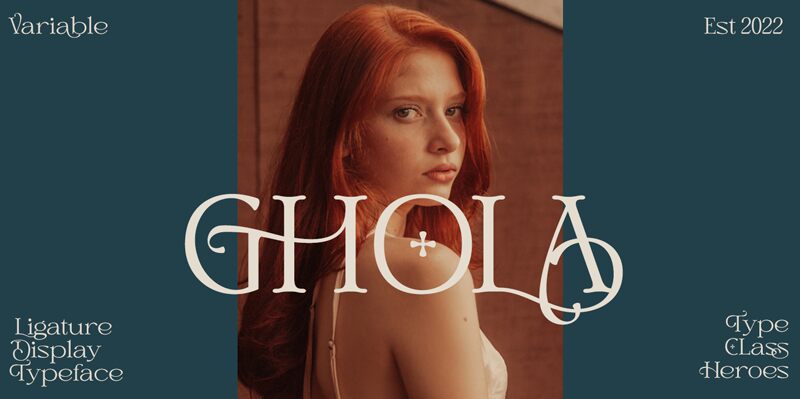
Ghola Demo Black
Ghola Black, from the Ghola typeface family crafted by TypeClassHeroes, commands attention with its ultra-bold weight and expanded width. This serif font marries the timeless elegance of traditional typesetting with a contemporary twist, making it a versatile choice for an array of creative projects.
Whether you're designing an eye-catching headline or seeking to inject sophistication into your branding, Ghola Black's distinctive presence is sure to elevate your work with its robust character and expansive appeal.